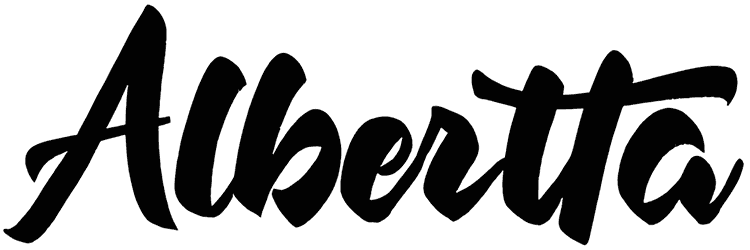
Albertta Font
Albertta is a handwritten font with a modern style. This font will be suitable for a wide variety of projects, such as logos, blog headers, branding, posters, invitations, stationery, and more. Get your hands on this ama…
Albertta is a handwritten font with a modern style. This font will be suitable for a wide variety of projects, such as logos, blog headers, branding, posters, invitations, stationery, and more.